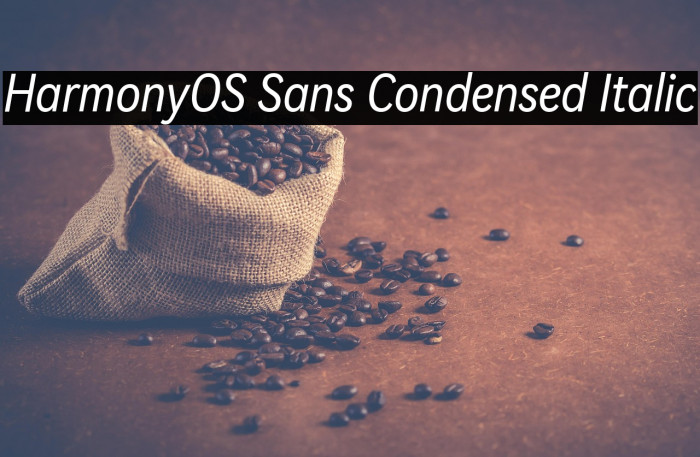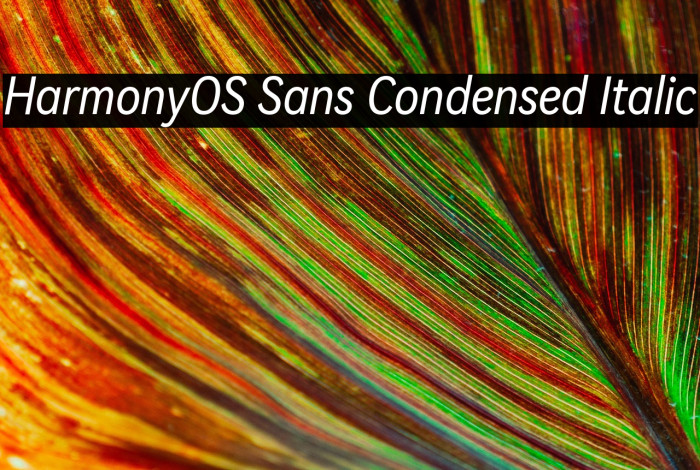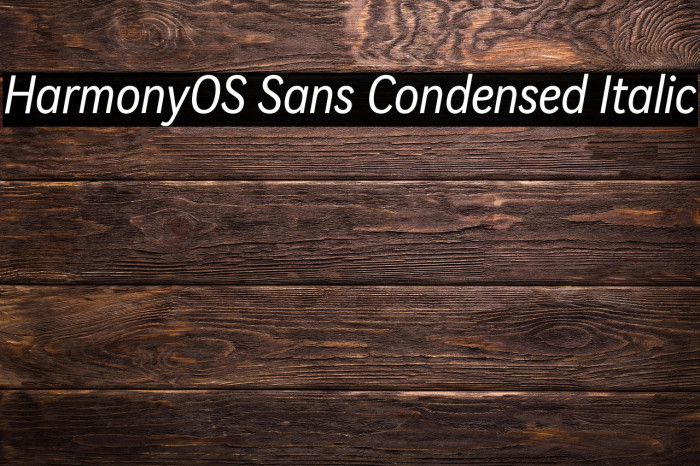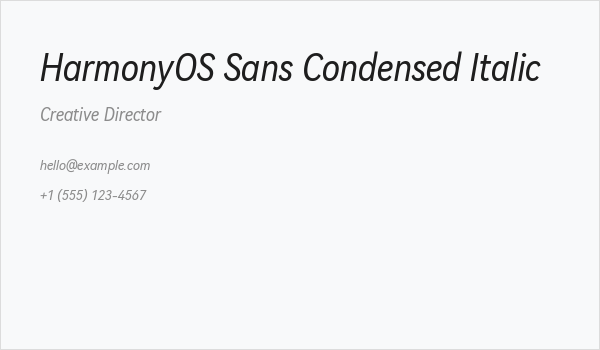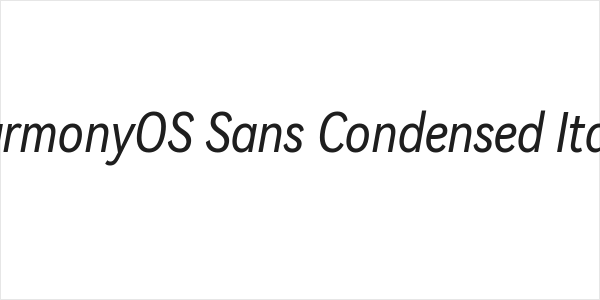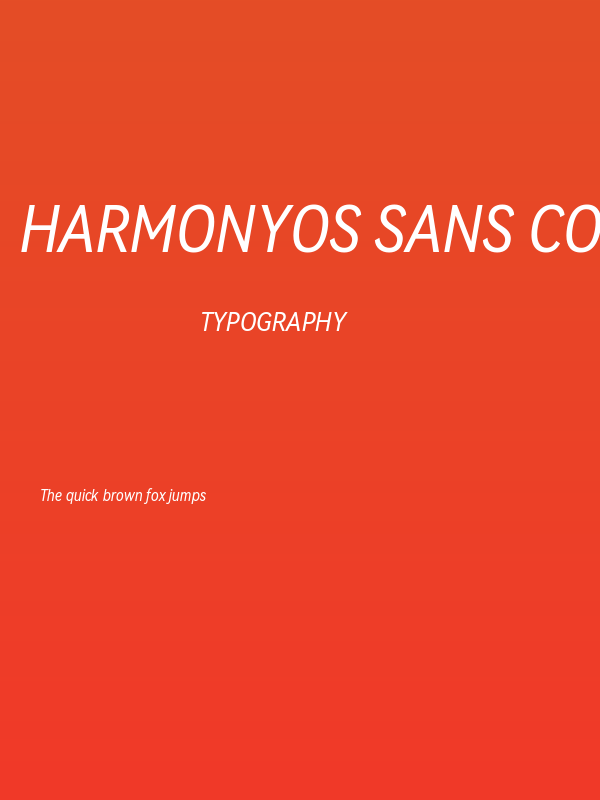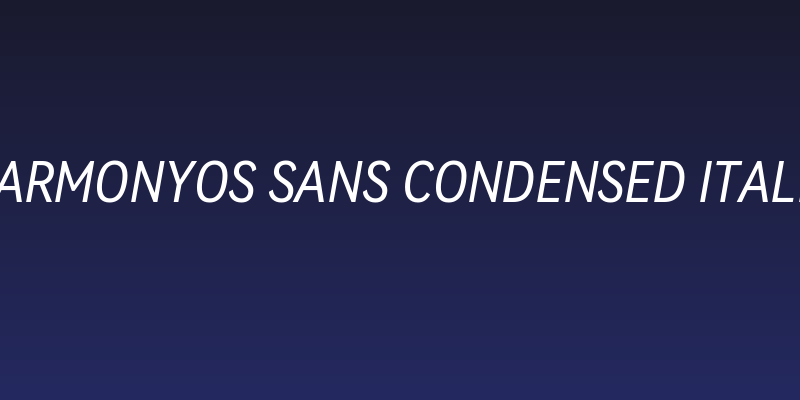
HarmonyOS Sans Condensed Italic Font
HarmonyOS Sans Condensed Italic Description
This font features a sleek and modern sans-serif design with a condensed width, offering a streamlined appearance. The italic style adds a dynamic and forward-leaning quality, making it suitable for contemporary and professional applications. The characters are well-defined with a medium stroke contrast, providing clarity and readability. Its clean lines and geometric shapes give it a versatile and adaptable look, perfect for digital interfaces and print media. The spacing between characters is normal, ensuring legibility across various sizes and contexts. This font's aesthetic is both functional and stylish, making it a great choice for a wide range of design projects.
| Proposed Projects | Ideal for use in digital interfaces, branding, advertising, and editorial design. |